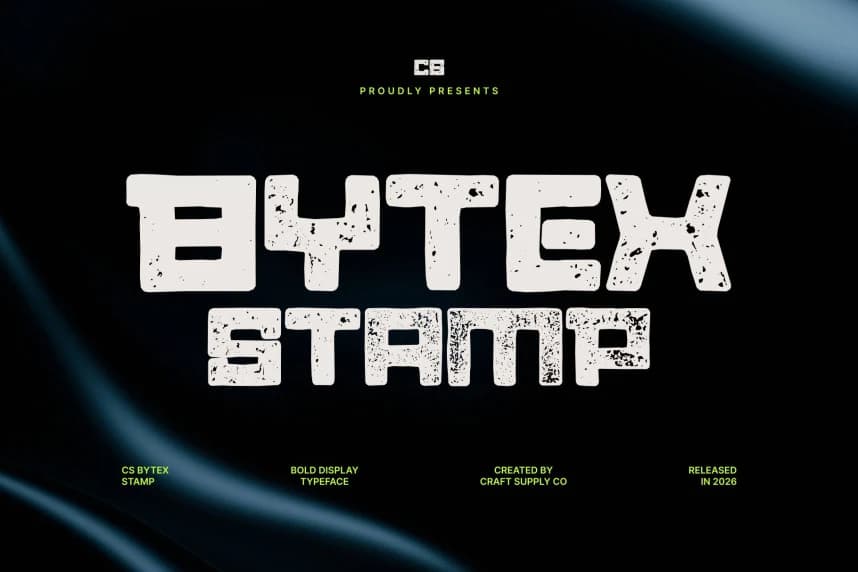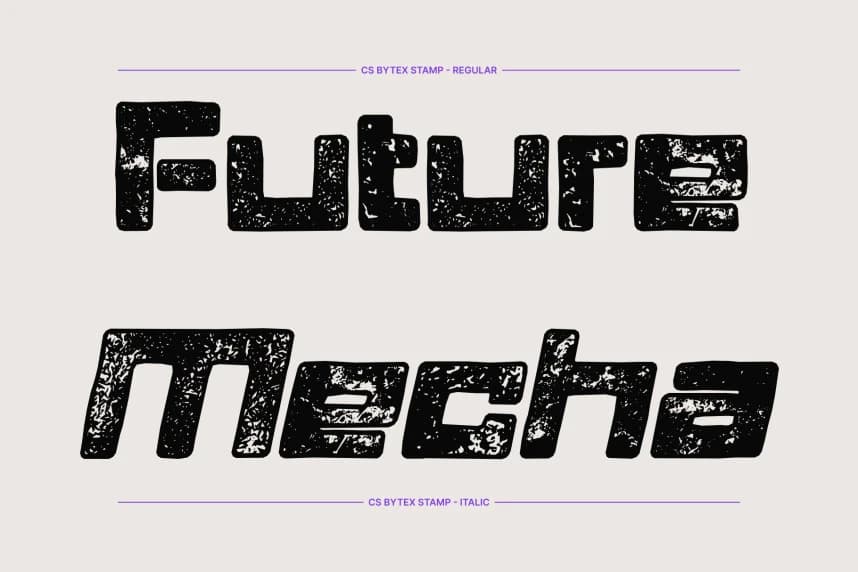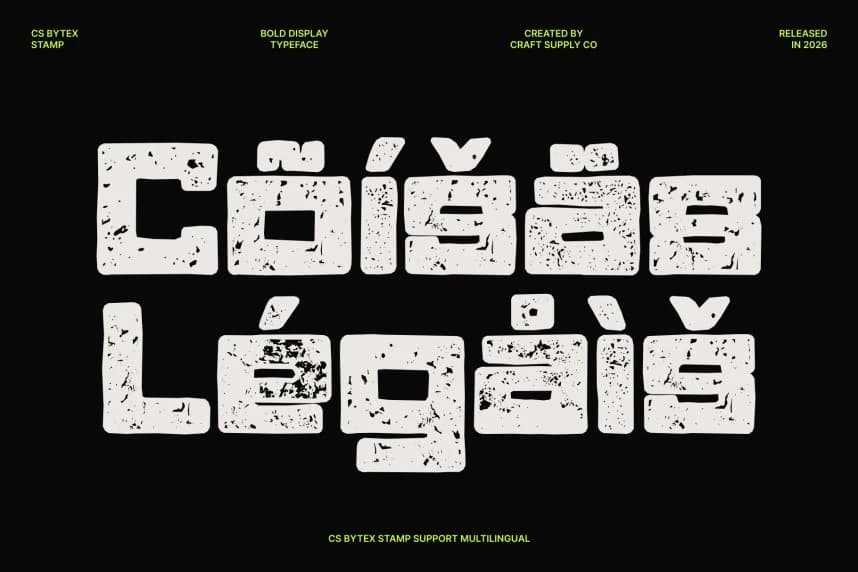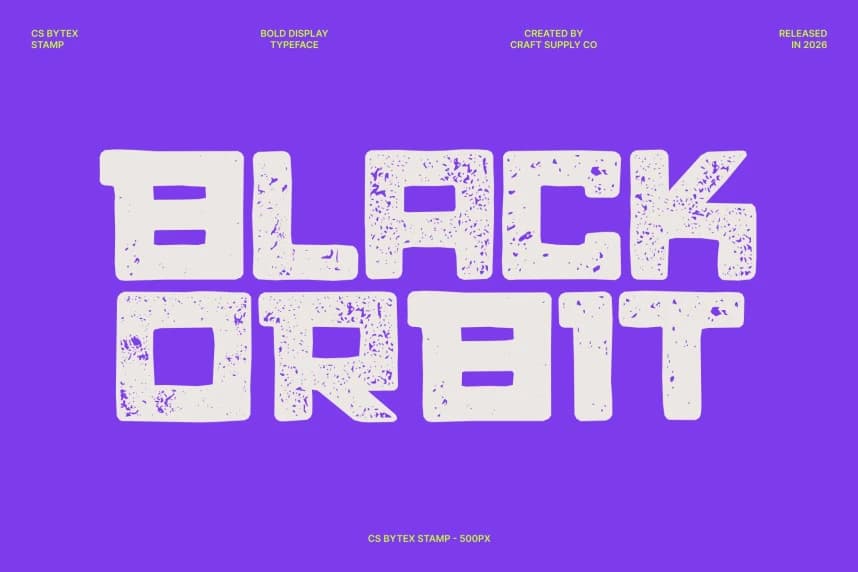
CS Bytex Stamp Font
CS Bytex Stamp Font – Bold Digital Font with Vintage Texture Futuristic Sans Serif Meets Handcrafted Stamp Aesthetic. This is a bold, techno-inspired sans serif font reimagined with a vintage stamp effect.